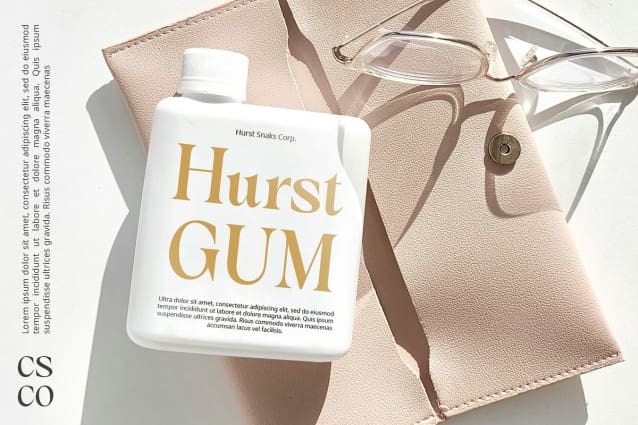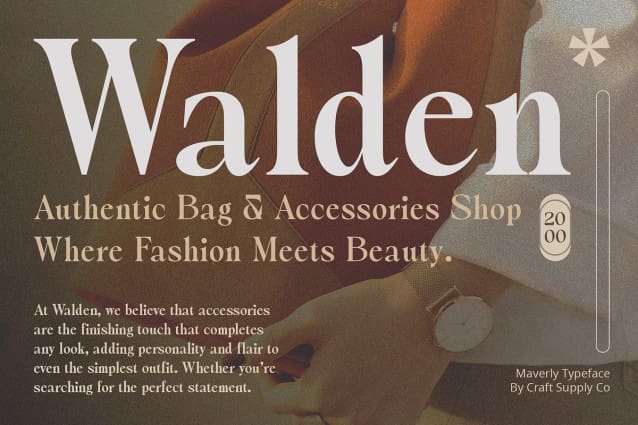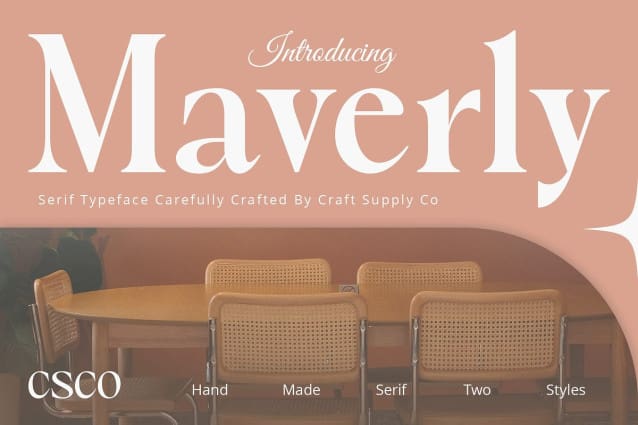
Maverly Font
Maverly Font – Serif Typeface: Evoking Calm Power. Serif Font with High Contrast Maverly Font is a serif typeface characterized by its high contrast between thick and thin strokes. This distinctive feature adds dynamism and elegance to the font, making it stand out in any design project.
Diagonal Axis for Modern Edge With its diagonal axis, Mavserly introduces a modern twist to traditional serif fonts. This unique design element infuses the typeface with a sense of movement and energy, setting it apart from more conventional options.
Calm Yet Powerful Vibes Despite its dynamic qualities, Maverly exudes a sense of calm and poise. Its graceful serifs and balanced proportions create a harmonious visual rhythm, instilling a feeling of confidence and authority in any text.
Perfect for Captivating Headlines Maverly Font is the ideal choice for captivating headlines and attention-grabbing titles. Its bold presence and refined details command attention, making a strong impression without overpowering the rest of the design.
Versatile and Impactful Whether used in print or digital media, Maverly adapts effortlessly to a variety of design applications. From editorial layouts to branding materials, its versatile nature and inherent elegance make it a valuable asset for designers seeking to make a lasting impact.
Embrace the Calm Power of Maverly Embrace the calm power of Maverly Typeface. With its high contrast, diagonal axis, and serene yet commanding presence, Maverly offers a sophisticated typographic solution for designers looking to make a statement with style and grace.